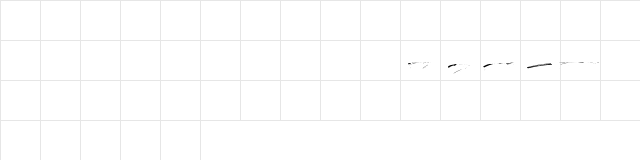
Rocket Shield Swashes Regular
| Designer | Andri Ardianto - Madatype Studio |
Design Context for Rocket Shield Swashes Typeface
Rocket Shield Swashes brings a calligraphic fluidity to the page — its connecting strokes and expressive curves give it an unmistakably human quality.
Font Pairing: Combine Rocket Shield Swashes with a simple geometric sans for maximum contrast — the tension between flowing curves and clean structure is a classic typographic pairing.
Pro Tip: Pair Rocket Shield Swashes with a clean sans-serif for supporting text. The contrast between fluid script and geometric structure creates an elegant typographic hierarchy.